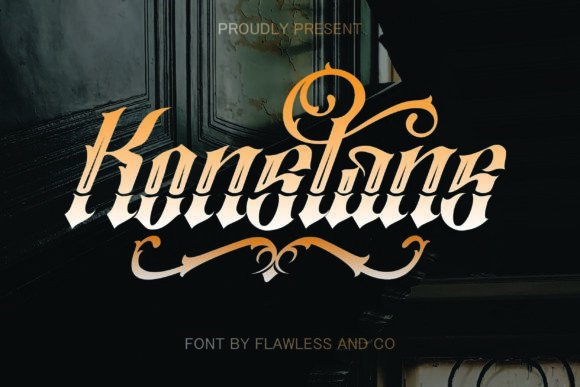
Konstans Font
**Konstans: The Blackletter Font That Will Capture Your Audience**
Step into the realm of captivating storytelling with Konstans, the ultimate blackletter font for cinematic masterpieces and beyond. Its bold and distinctive characters will ignite your designs with an aura of authenticity and timeless elegance.
Indulge in the allure of Konstans, crafted by the visionary minds at Flawless And Co. As the sole member of its captivating font family, Konstans stands as a testament to meticulous artistry and unwavering attention to detail. Each stroke and curve has been meticulously designed to evoke the charm of ancient manuscripts and the allure of modern sophistication.
Unleash your creativity with Konstans, the perfect font for a myriad of captivating applications. From movie posters that demand attention to branding materials that leave a lasting impression, Konstans has the power to transform your designs into works of art. Its versatility extends to t-shirts, business cards, logos, photography, and quotes, ensuring that your message will always command the spotlight.
Experience the magic of alternate characters, a treasure trove of visual possibilities that await your exploration. Swap out characters with ease, unlocking a realm of design options that will elevate your creations to new heights.
With Konstans at your fingertips, every design project becomes a captivating journey. Its authentic style will captivate your audience, transporting them to the heart of your story. Embrace the power of blackletter and watch as your designs ignite with an unparalleled brilliance.